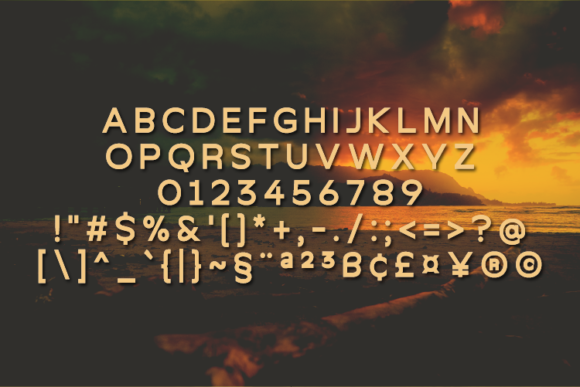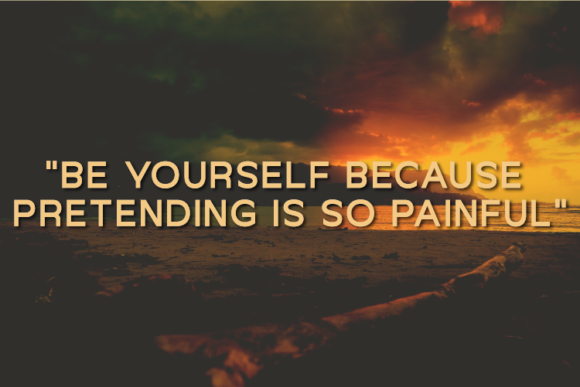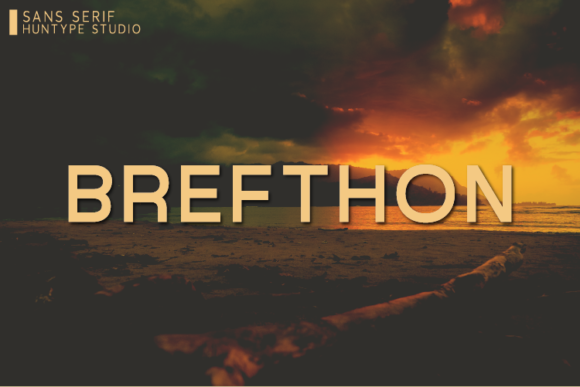
Brefthon Font: The Ultimate Sans Serif Font for Modern Designs
In the world of typography, fonts play a crucial role in making or breaking a design. A well-chosen font can elevate your project and make it stand out from the crowd. If you’re a designer or crafter looking for a simple yet authentic sans serif font, look no further than Brefthon Font. In this article, we’ll dive into the world of Brefthon Font and explore its features, benefits, and uses.
What is Brefthon Font?
Brefthon Font is a modern sans serif font that boasts a clean, thin, and smooth vibe. Its simplicity and authenticity make it an excellent choice for designers and crafters who want to add a touch of elegance to their projects. Whether you’re working on a logo, branding, packaging, or website design, Brefthon Font is sure to make a hit.
Key Features of Brefthon Font
- Clean and Simple Design: Brefthon Font features a clean and simple design that makes it perfect for modern designs.
- Thin and Smooth Lines: The font’s thin and smooth lines give it a sleek and sophisticated look.
- Sans Serif: Brefthon Font is a sans serif font, which means it doesn’t have any decorative lines or flourishes.
- Authentic and Unique: Despite its simplicity, Brefthon Font has a unique and authentic feel that sets it apart from other sans serif fonts.
Benefits of Using Brefthon Font
So, why should you choose Brefthon Font for your next project? Here are just a few benefits of using this amazing font:
- Versatility: Brefthon Font is incredibly versatile and can be used for a wide range of projects, from logos and branding to packaging and website design.
- Elegance: The font’s clean and simple design gives it an elegant and sophisticated look that’s perfect for high-end designs.
- Readability: Brefthon Font is highly readable, even at small sizes, making it perfect for body text and captions.
- Uniqueness: Brefthon Font has a unique and authentic feel that will help your design stand out from the crowd.
Who Can Use Brefthon Font?
Brefthon Font is perfect for a wide range of designers and crafters, including:
- Graphic Designers: Brefthon Font is perfect for graphic designers who want to create modern and elegant designs.
- Web Designers: The font’s clean and simple design makes it perfect for web designers who want to create responsive and user-friendly websites.
- Crafters: Brefthon Font is also perfect for crafters who want to add a touch of elegance to their handmade projects.
- Branding Experts: The font’s unique and authentic feel makes it perfect for branding experts who want to create memorable and impactful brands.
- Pair it with Other Fonts: Brefthon Font pairs well with other sans serif fonts, as well as serif fonts.
- Experiment with Different Sizes: The font’s clean and simple design makes it perfect for use at a wide range of sizes.
- Use it for Body Text: Brefthon Font is highly readable, making it perfect for use as body text.
In conclusion, Brefthon Font is a simple yet authentic sans serif font that’s perfect for modern designs. Its clean, thin, and smooth vibe makes it an excellent choice for designers and crafters who want to add a touch of elegance to their projects. With its versatility, elegance, readability, and uniqueness, Brefthon Font is sure to make a hit for any design you want to add it to.